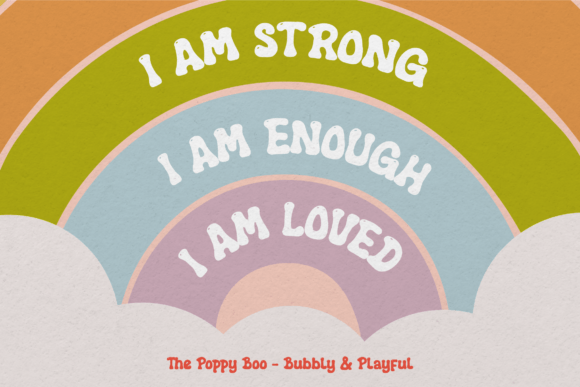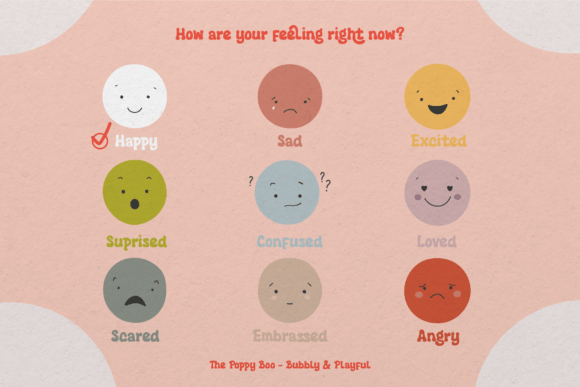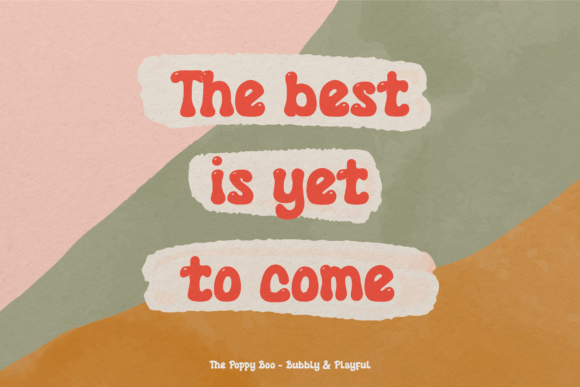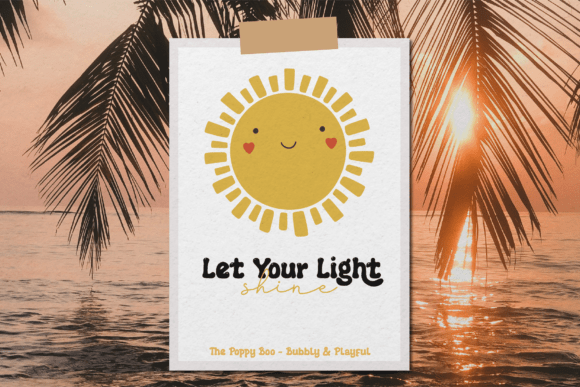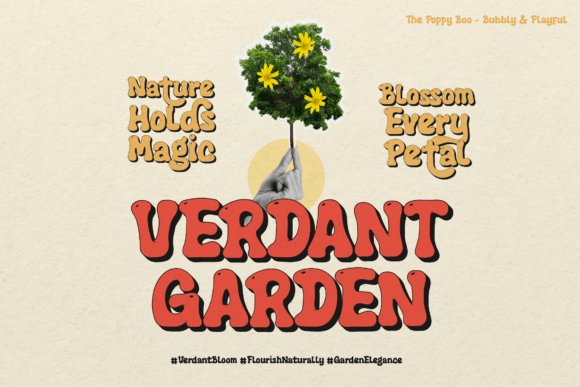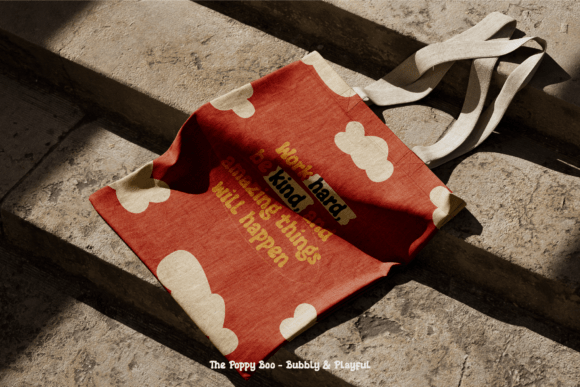
Introduction to Poppy Boo Font
Have you ever stumbled upon a font that perfectly captures the whimsy and charm of your creative project? For designers, finding that elusive font can be a game-changer, elevating our work from good to great. That’s where the delightful Poppy Boo Font comes in – a bubbly display font that’s sure to bring a smile to your face.
Imagine you’re working on a branding project, and you need a font that exudes playfulness and friendliness. Or perhaps you’re designing a set of homeware products, and you want a font that’s both stylish and approachable. The Poppy Boo Font is the perfect design resource to make your creative vision a reality.
Key Features of Poppy Boo Font
- High-quality design resource perfect for creative projects, offering a unique and playful style.
- Transparent background option, enabling users to easily place the font over any image or design element.
- Available in a single weight, making it easy to use in a variety of design contexts without worrying about multiple font weights.
- Designed to be highly legible and visually appealing, even at small font sizes, ensuring readability in creative projects.
- Resolution-independent, allowing users to use the font at any resolution without compromising its quality.
- Size: The font includes a range of characters, including uppercase and lowercase letters, numbers, and punctuation marks, making it a versatile design resource.
Honest Review: Poppy Boo Font
I recently stumbled upon the Poppy Boo Font, a free download that’s been making waves in the design community. As a designer, I was excited to see how it would perform in my creative project.
Here are some of the things that work well: ✨
- High-quality typography: The font’s sleek and modern design makes it perfect for a wide range of creative projects.
- Customization options: The font’s transparent background allows for seamless integration with other design elements.
However, I did encounter a few limitations: ⚠️
- Limited font sizes: The font’s design may not be suitable for very large or very small font sizes.
- No bold or italic options: While the font’s design is clean and modern, the lack of bold or italic options may limit its use in certain situations.
Overall, I’m impressed with the Poppy Boo Font’s potential. While it may have some limitations, its high-quality typography and customization options make it a valuable design resource. If you’re looking for a free font to add some flair to your creative project, the Poppy Boo Font is definitely worth checking out.
The Poppy Boo Font is perfect for creative projects that require a high-quality, free design resource. Its transparent background makes it ideal for use on images and graphics, and its high-quality design makes it suitable for a wide range of applications, from branding and marketing materials to digital art and design projects.